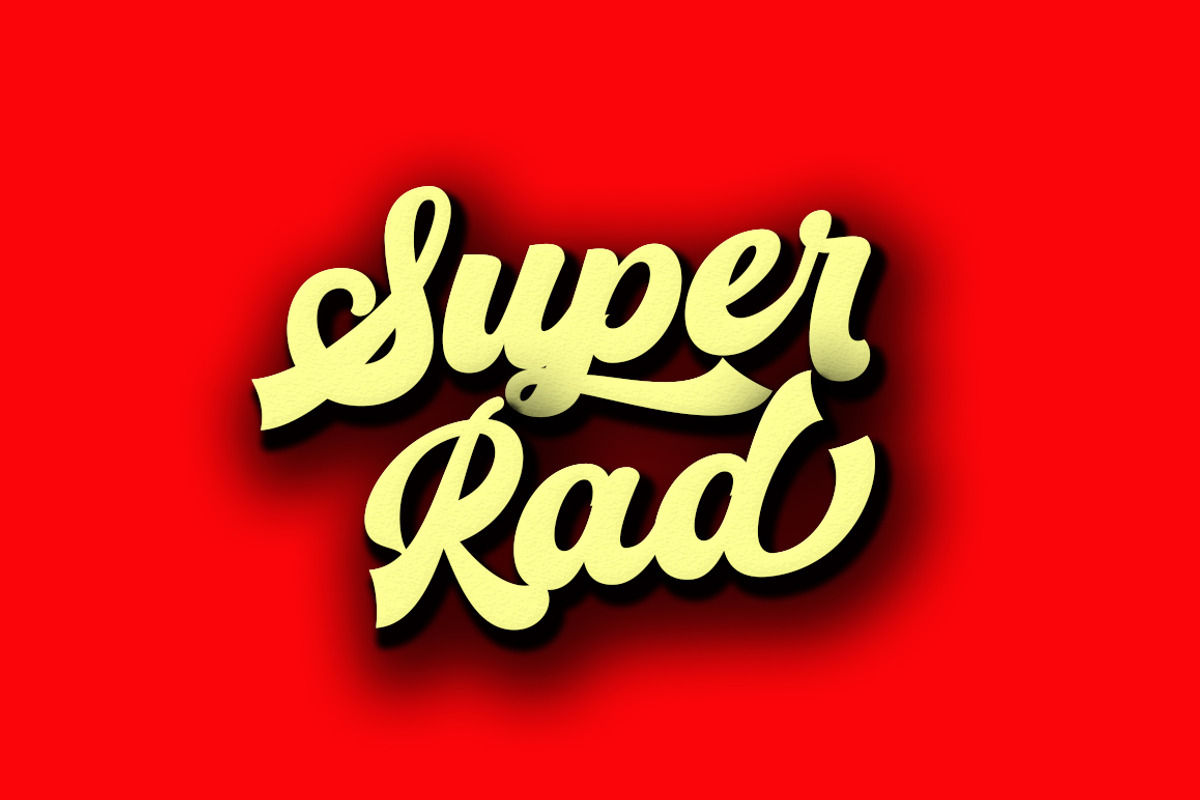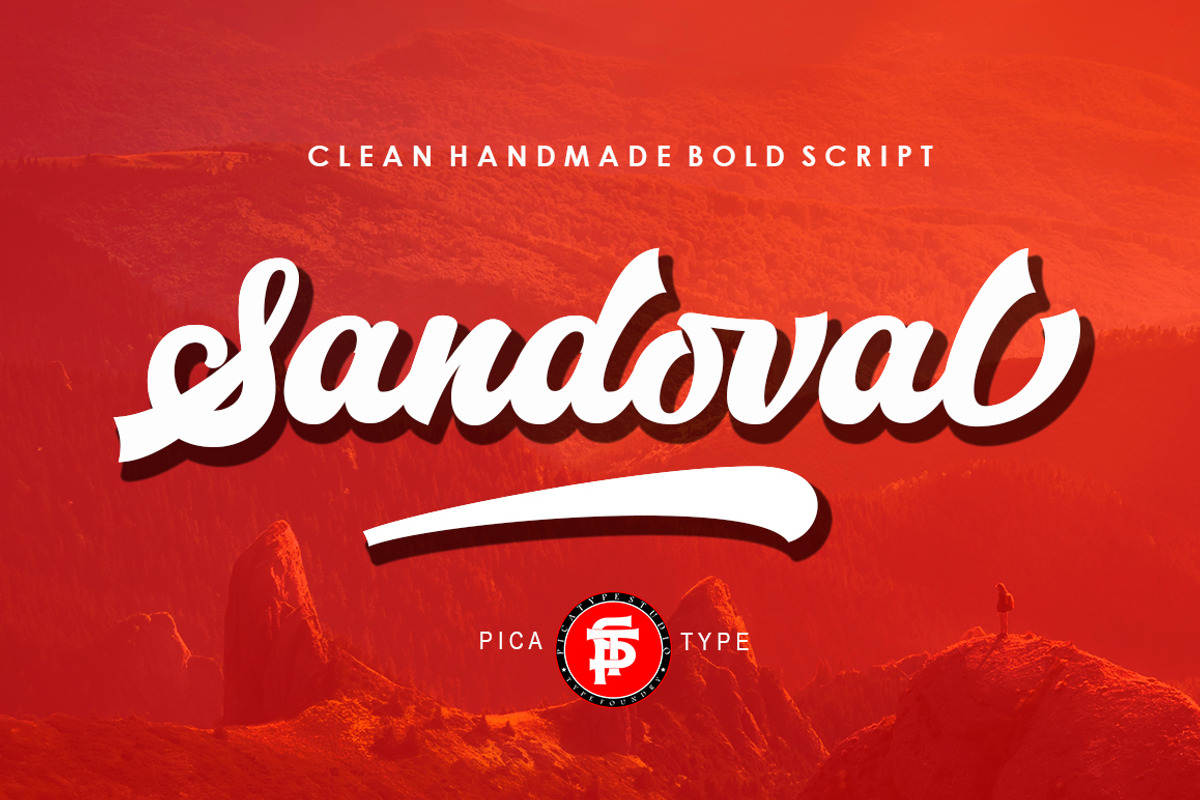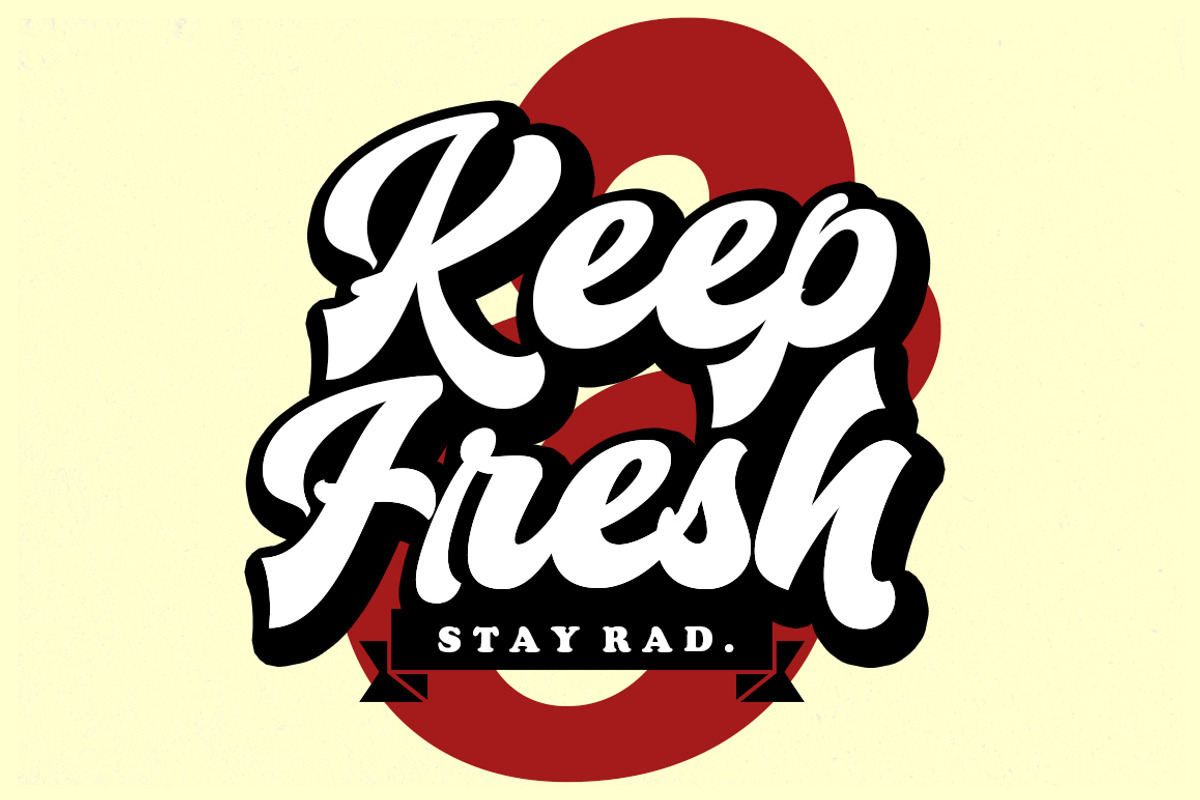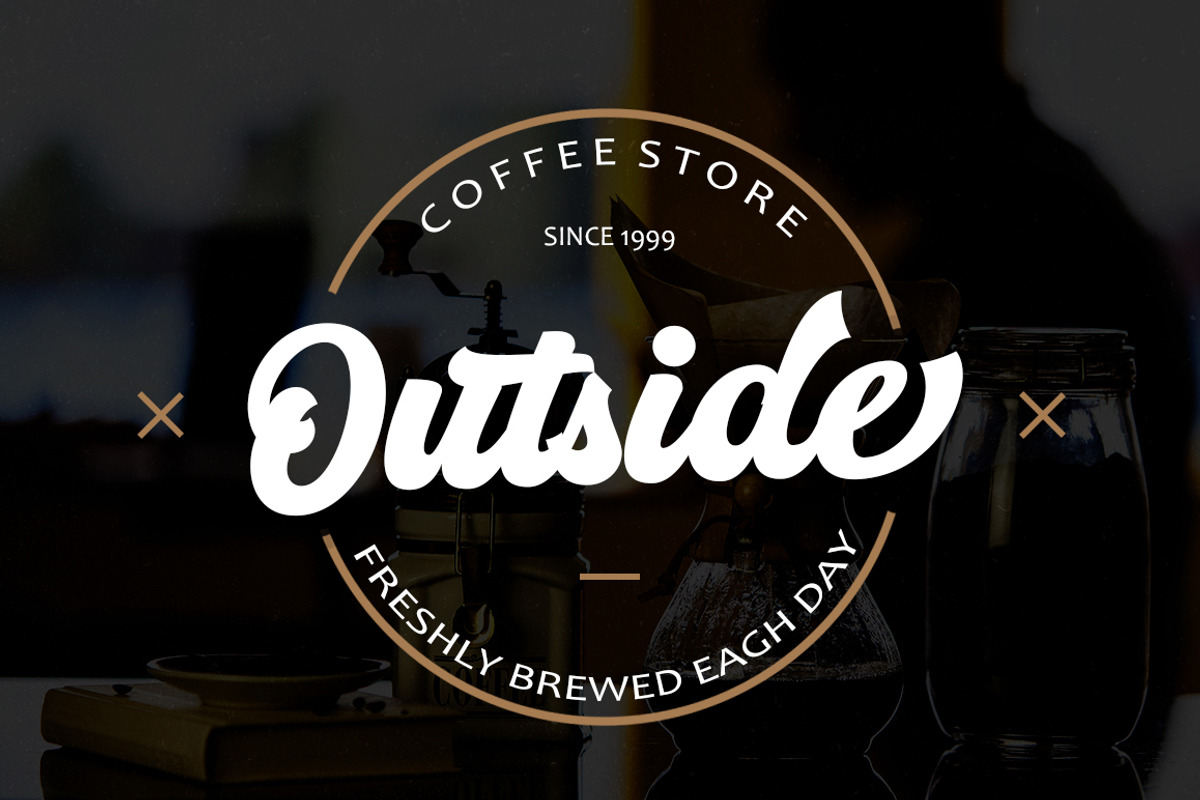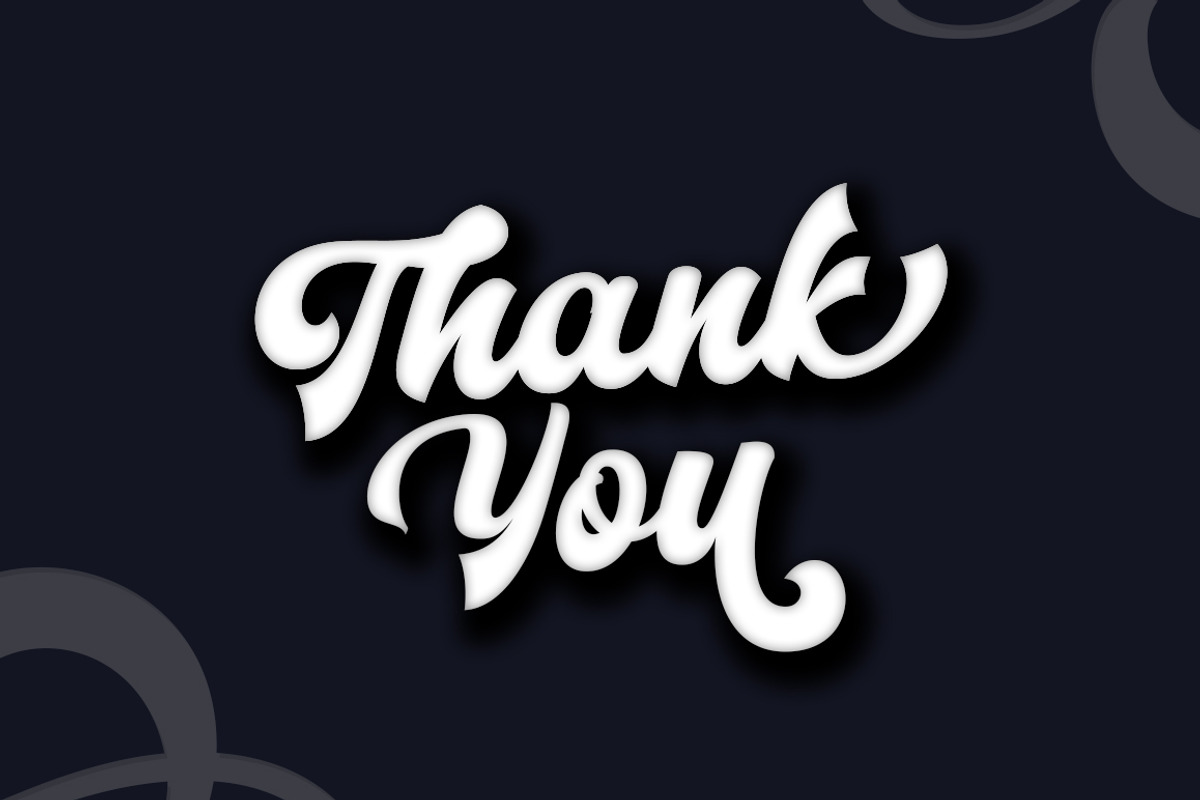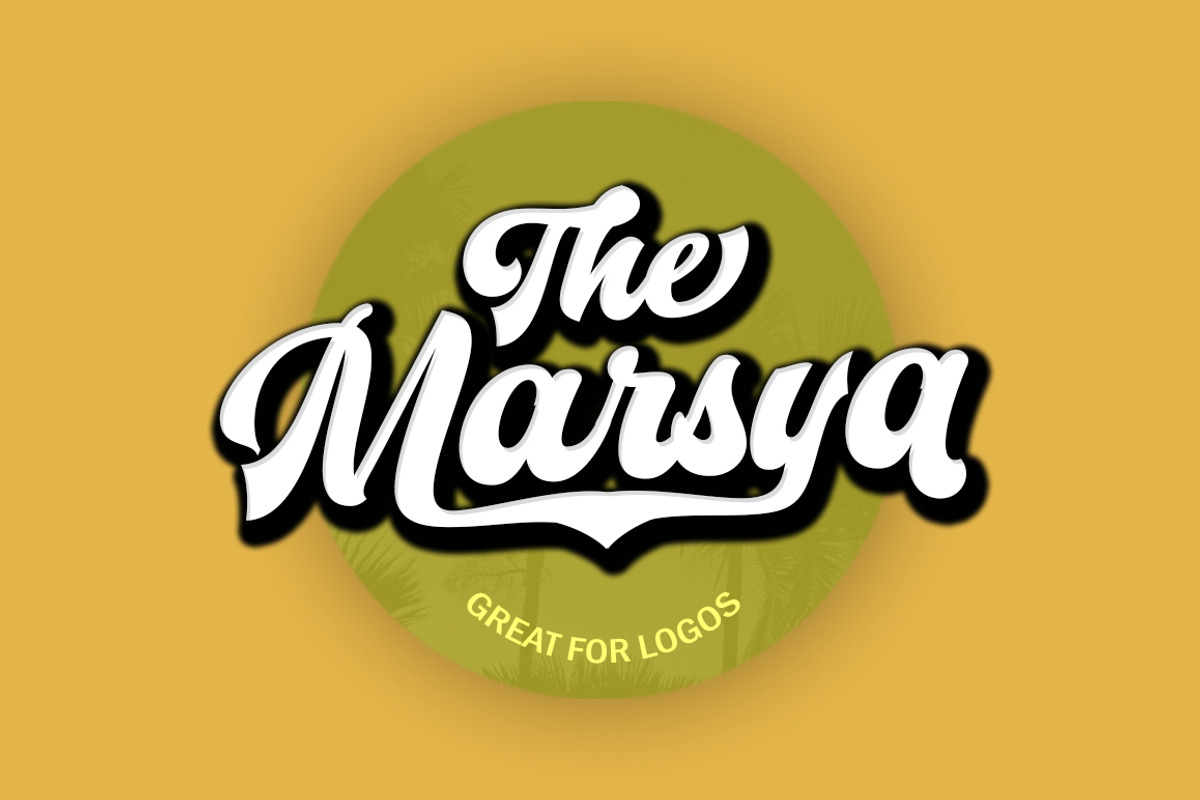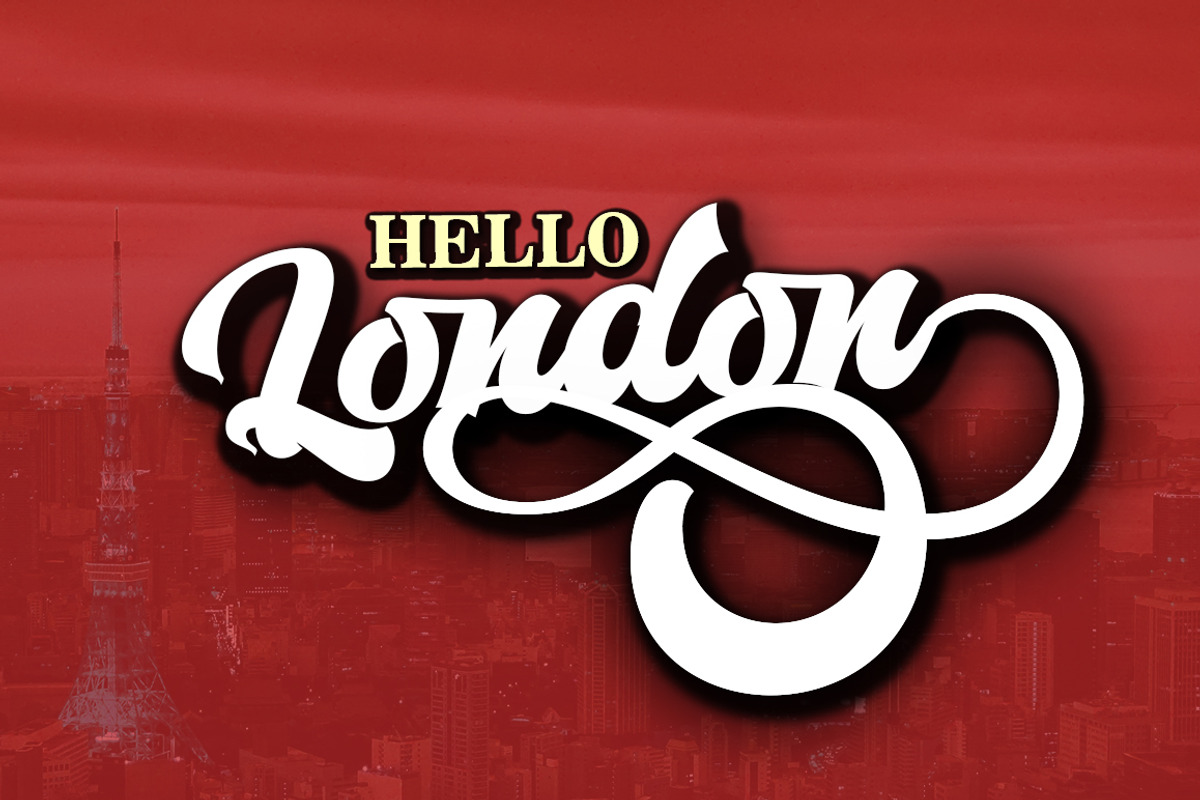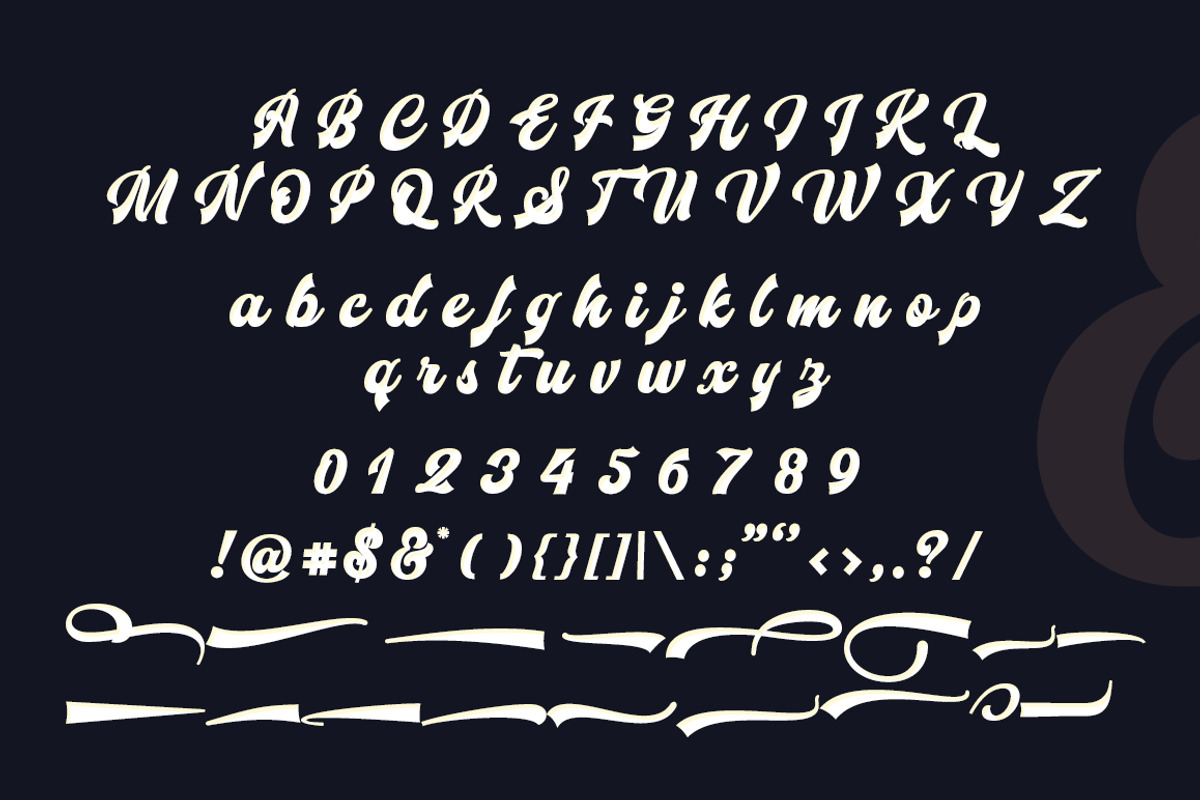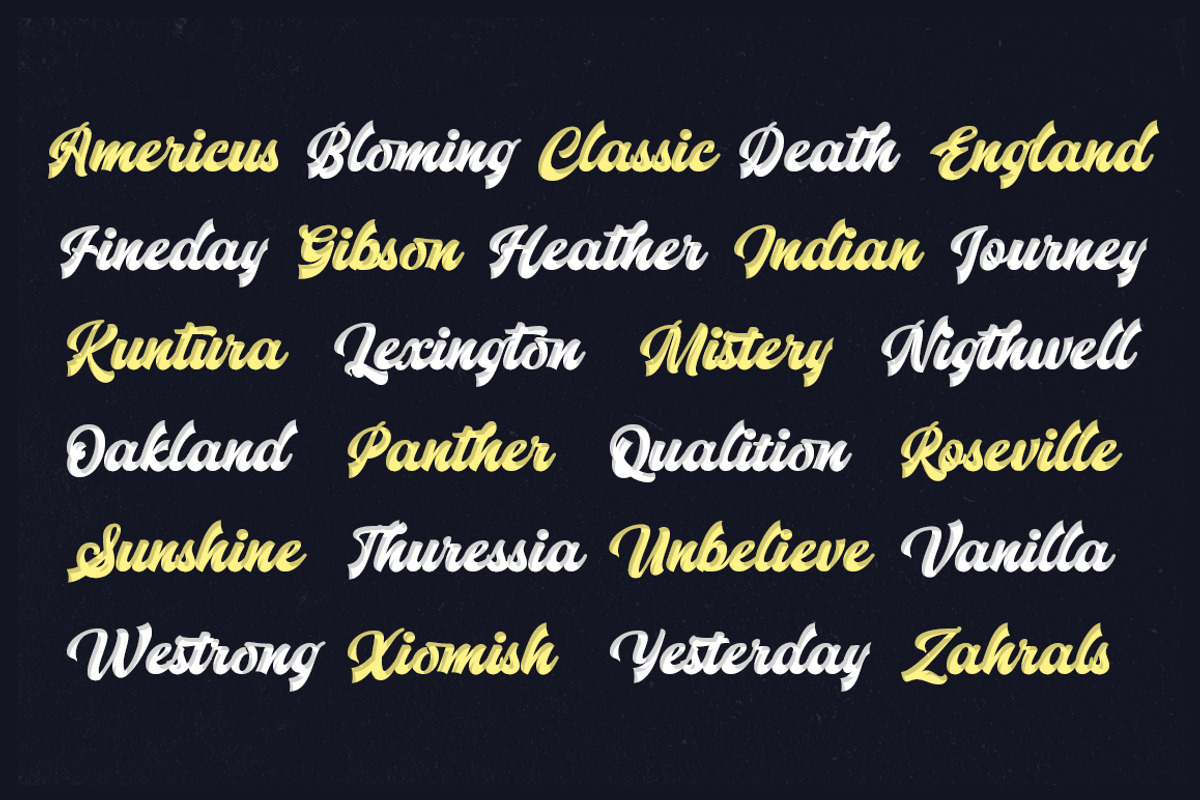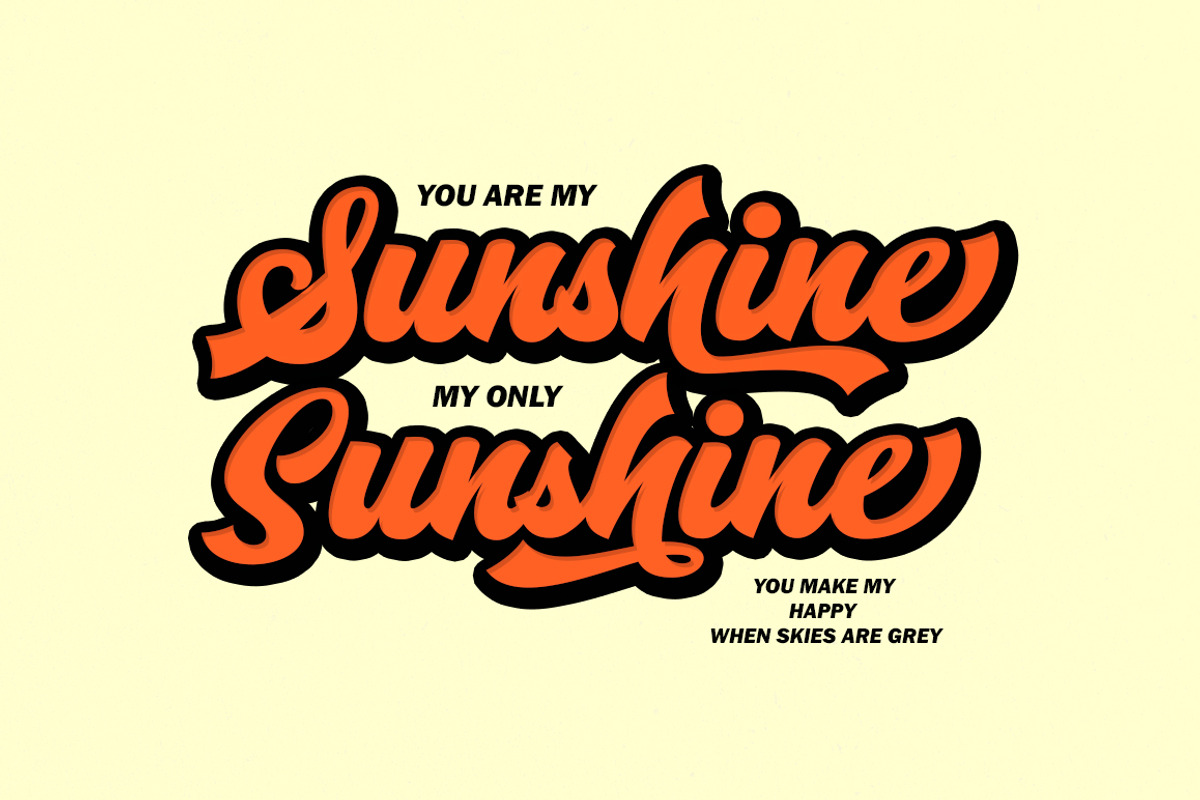
Sandoval
Sandoval Script is a handmade script font with clear style and creative projects such as logos, printed quotes, invitations, cards, product packaging, headers, logos, letterhead, posters, clothing designs, labels,as you can use the illustrative qualities of the shapes to create an art piece.
Sandoval Script come with uppercase letters, lowercase letters, numbers, punctuation, and so many variations on each character including alternative opentype, general binder, and a very useful set of Swash bonuses. It's fun to use because each word can be transformed to you like.